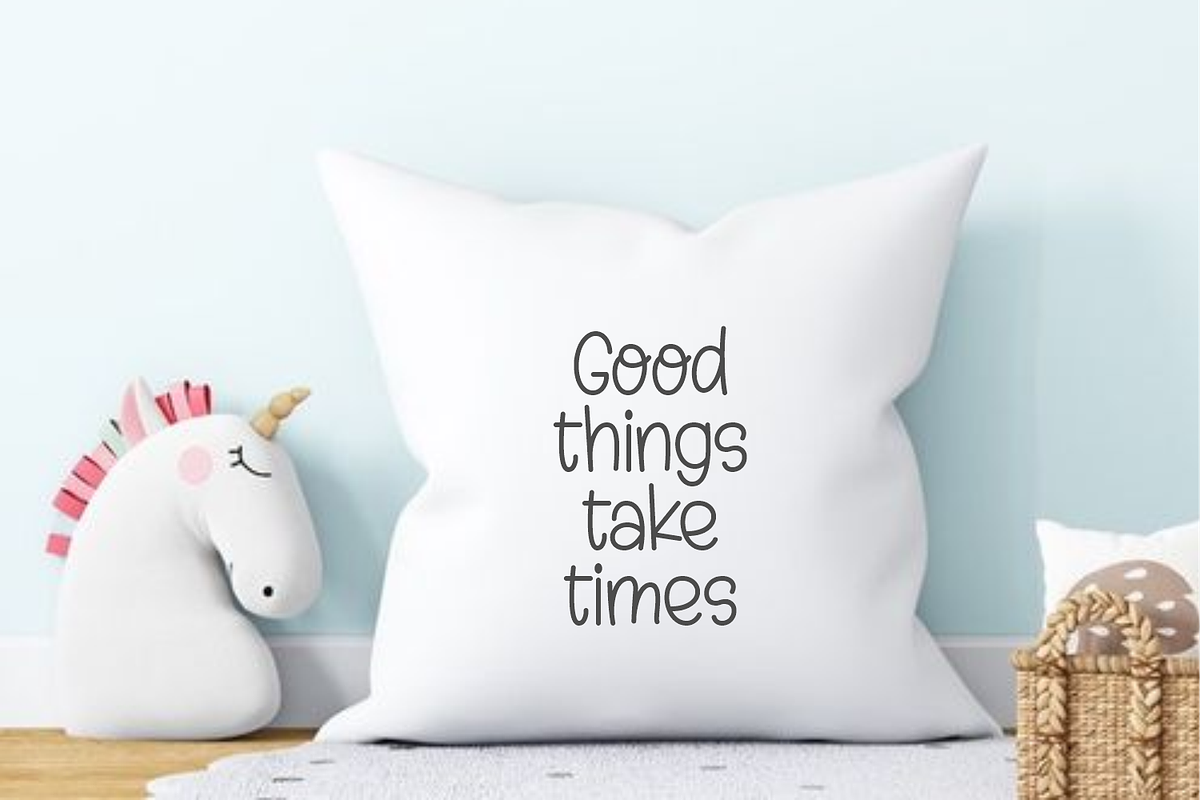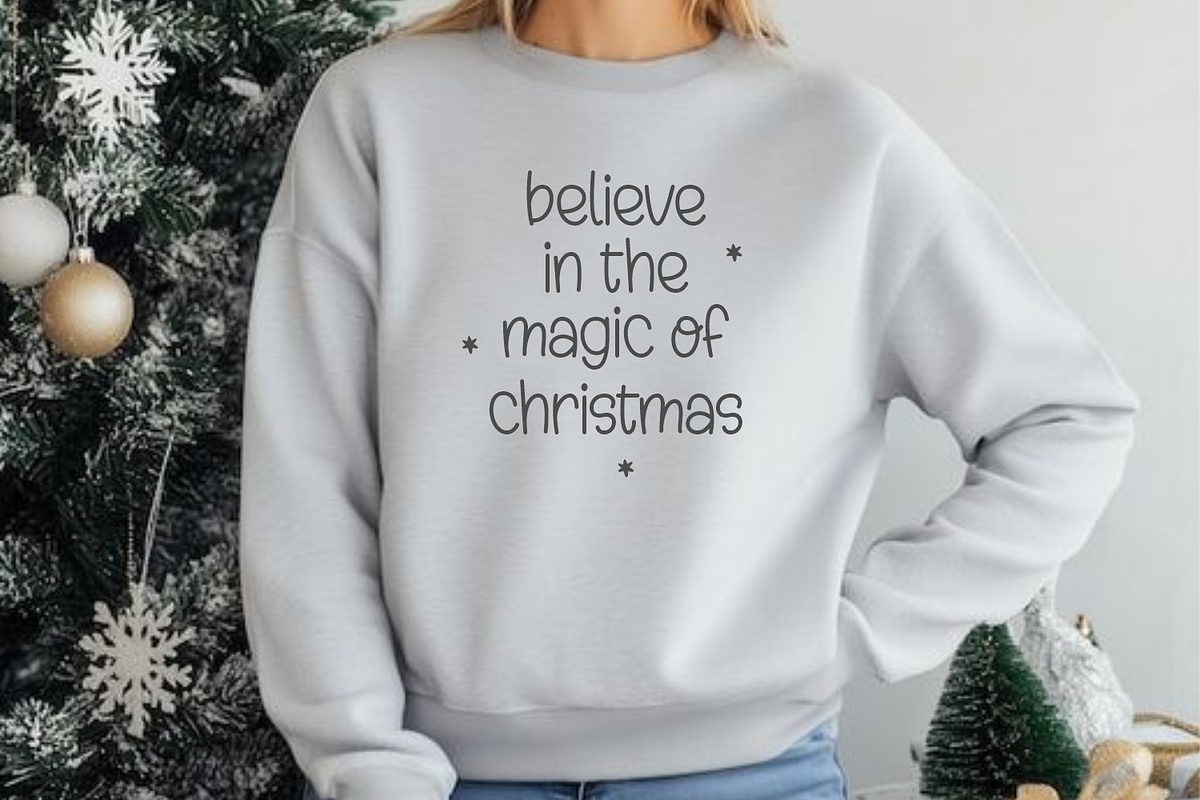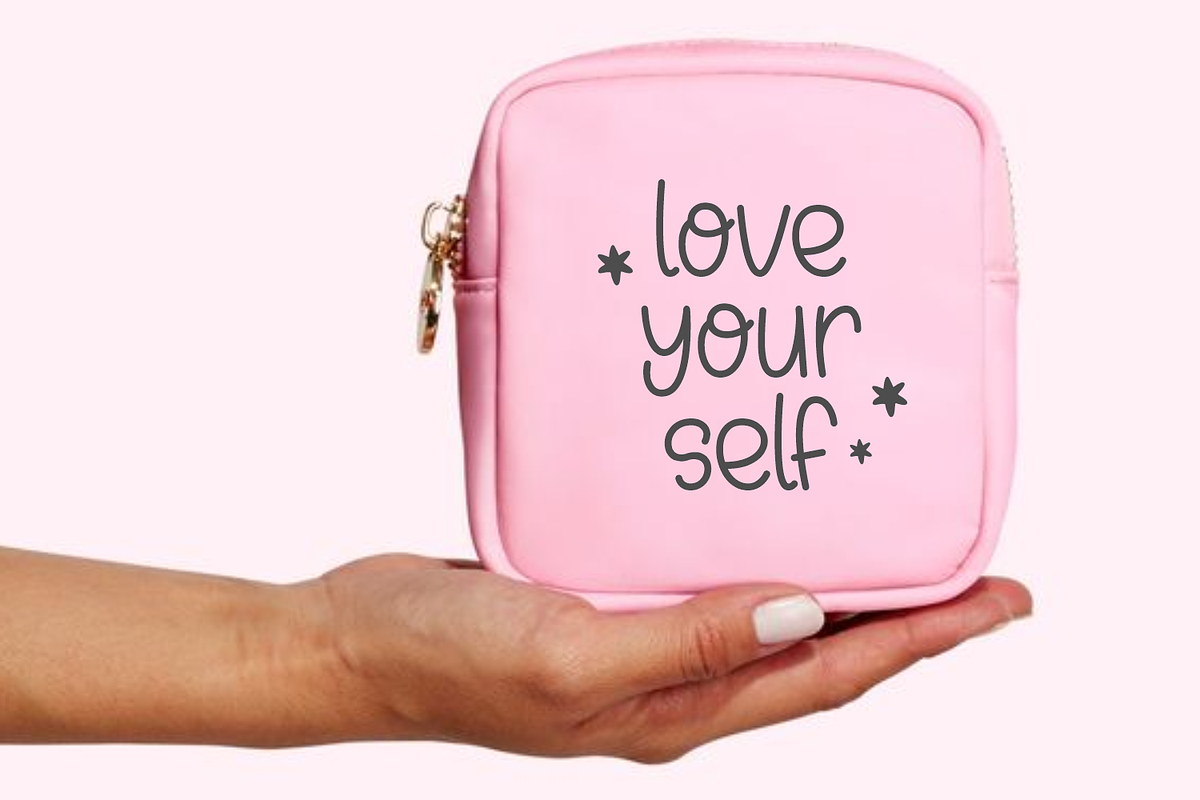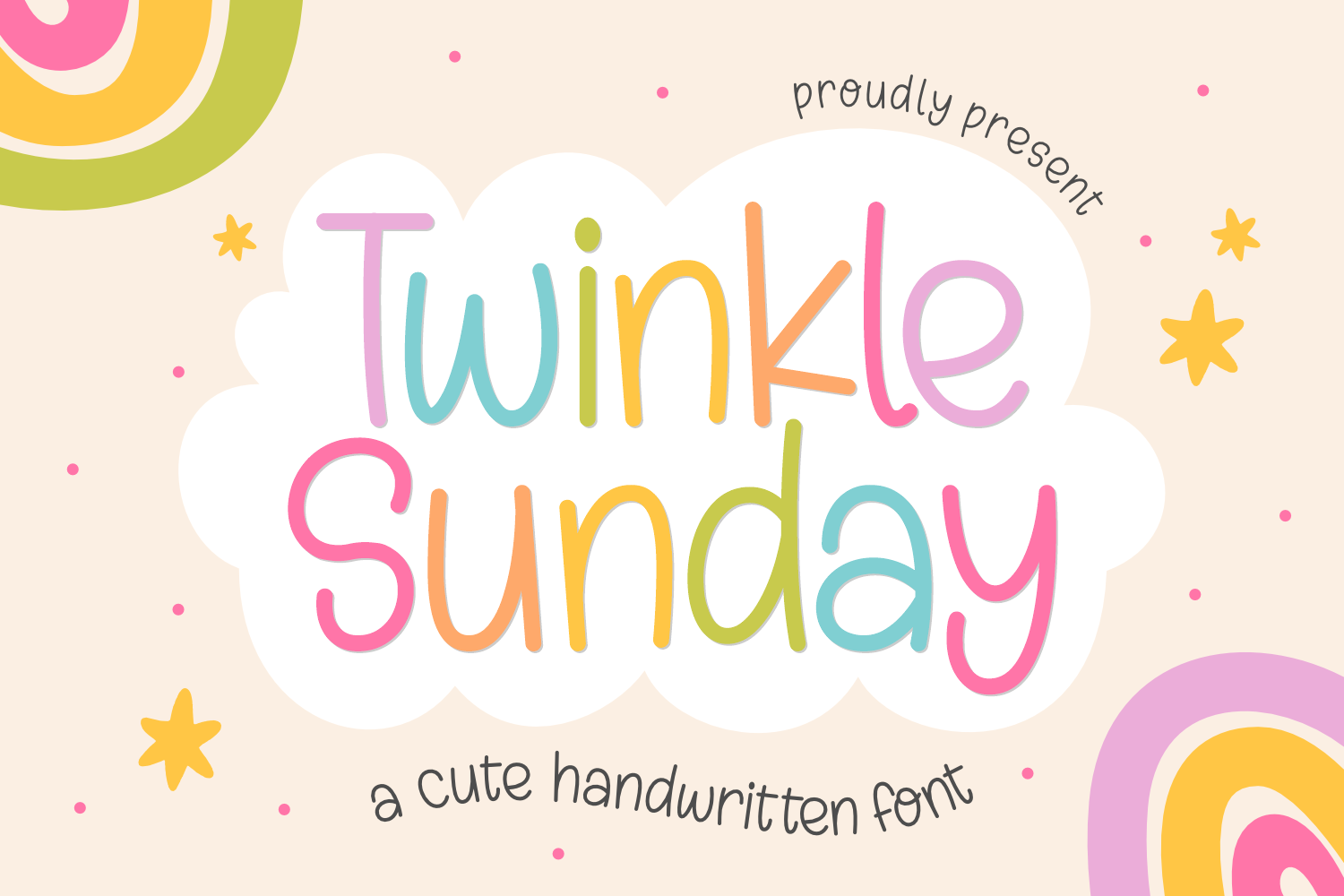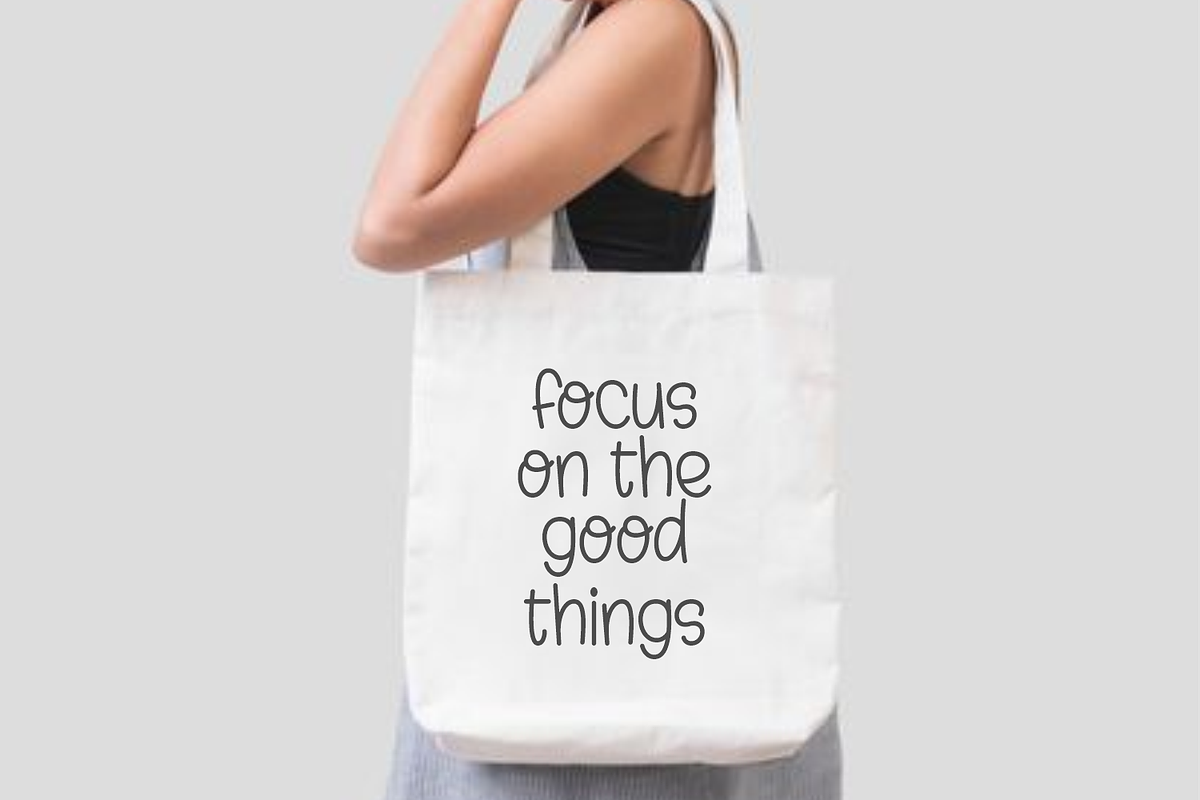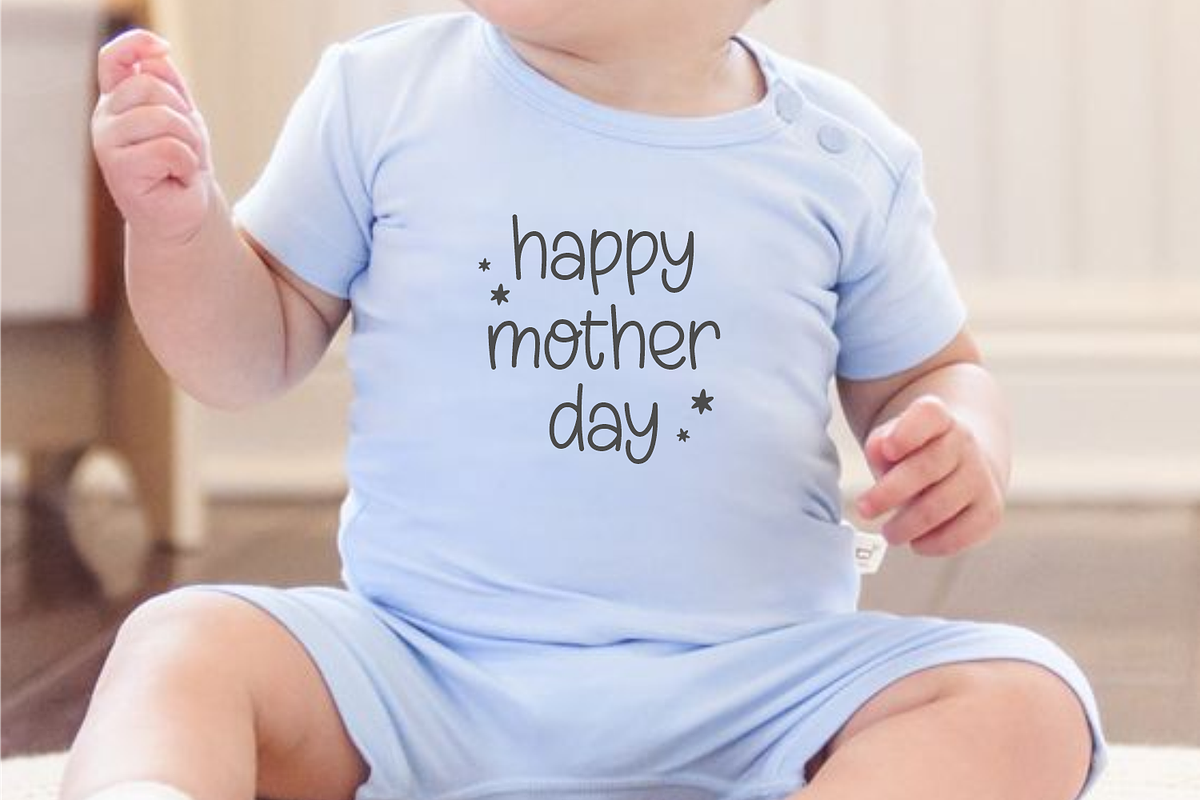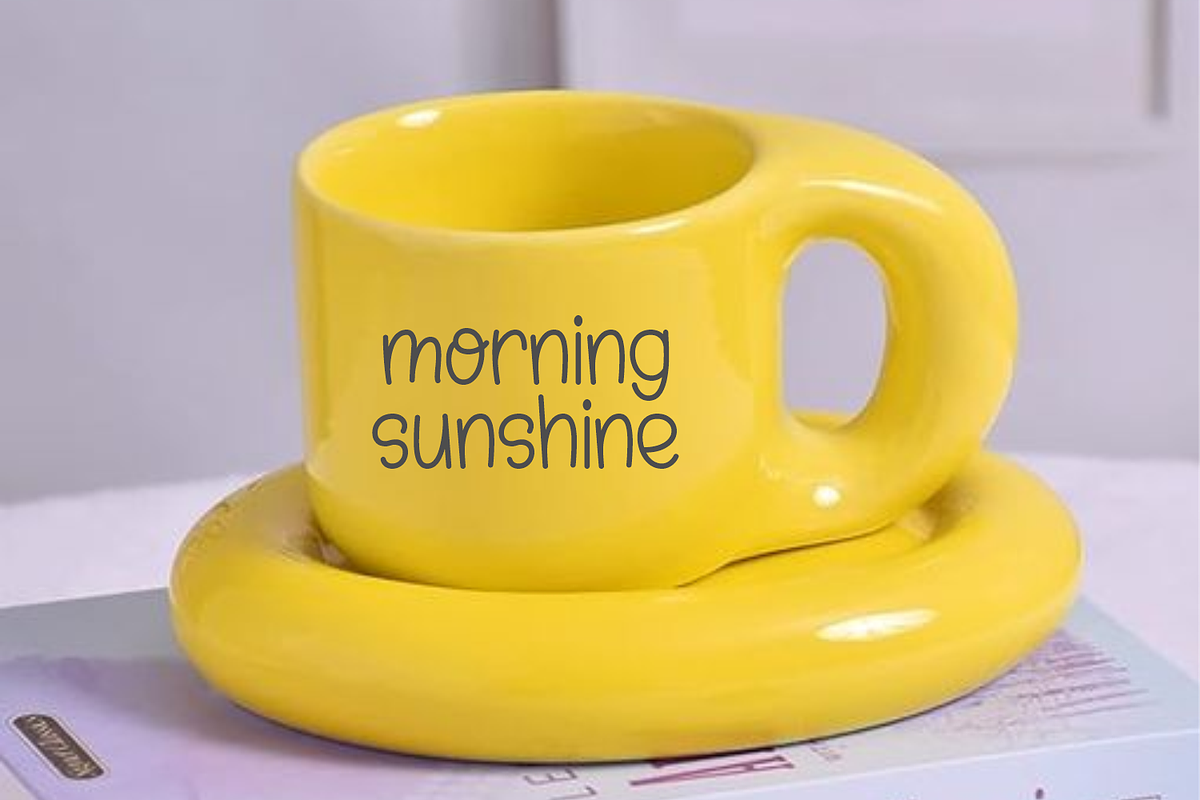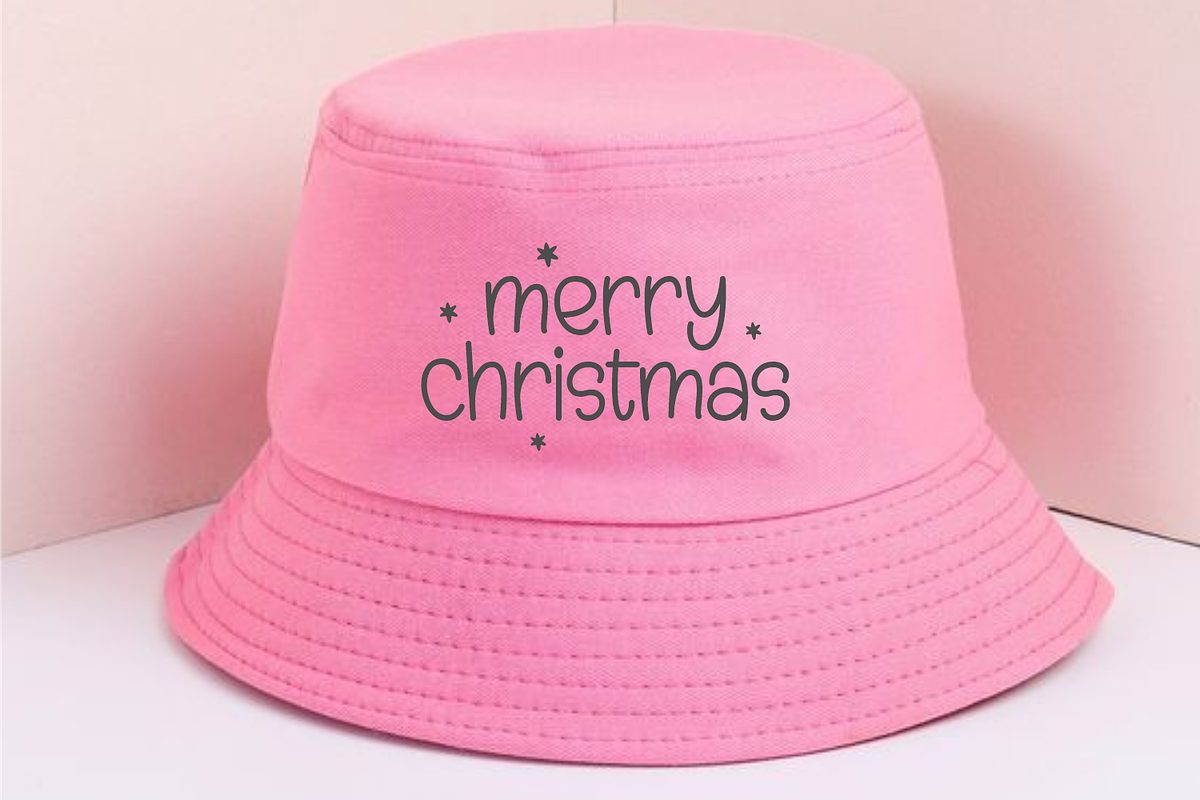
Twinkle Sunday - Christmas Font
Explore your creativity with Twinkle Sunday, an enchanting handwritten font exuding whimsy and charm. With a stroke of this unique typography, transform your t-shirts, tote bags, pouches, pillows, mugs, and even hats into pieces buzzing with personalized magic. Twinkle Sunday isn’t simply a font—it’s a celebrated tool for infusing exhilarating originality and a delightful touch of ‘you’ into an universe abounding with creative potential.